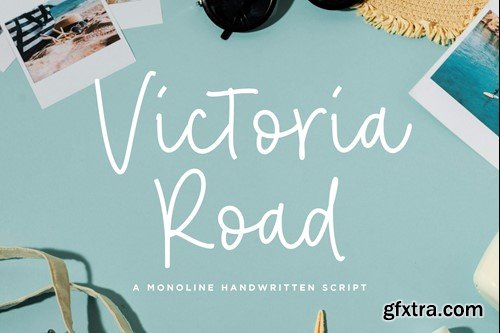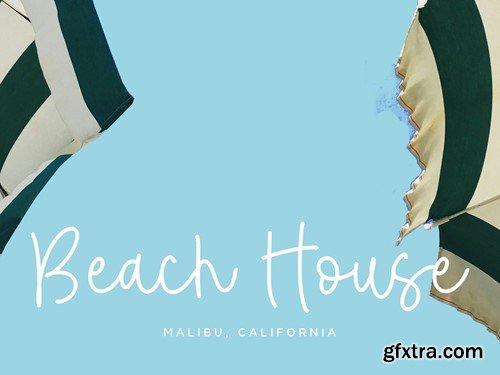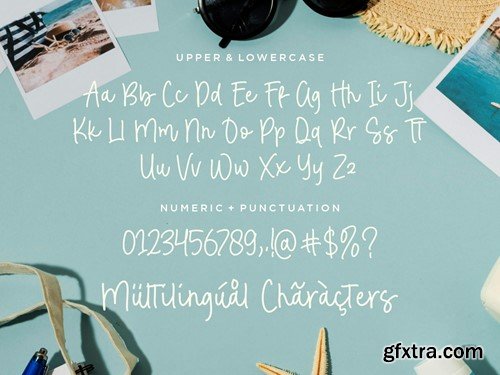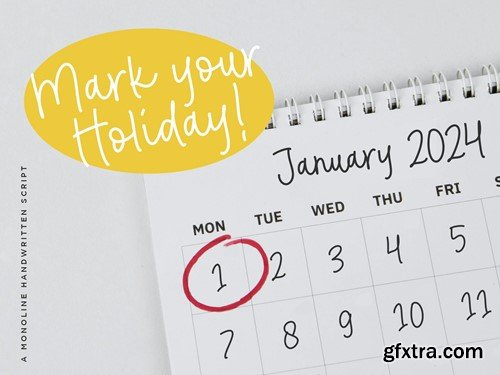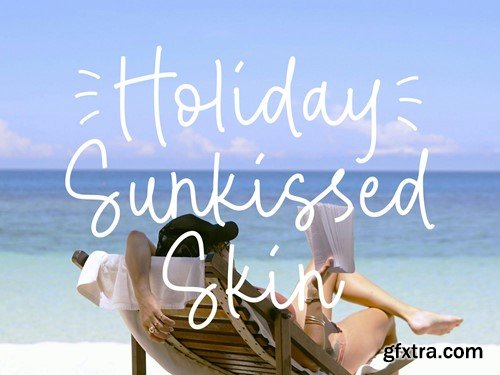
Victoria Road Script Font
Victoria Road is a Monoline Handwritten Script Font that’s perfect for adding a touch to your design projects! Crafted with care and attention to detail, this font is incredibly versatile and can be used for a range of design projects, including logos, branding, invitations, and more. Its modern, handwritten style gives it a unique character that’s sure to make an impact. Included TTF, OTF and WOFF Files! Also multilingual support Thank you! Design by : Balpirick Studio